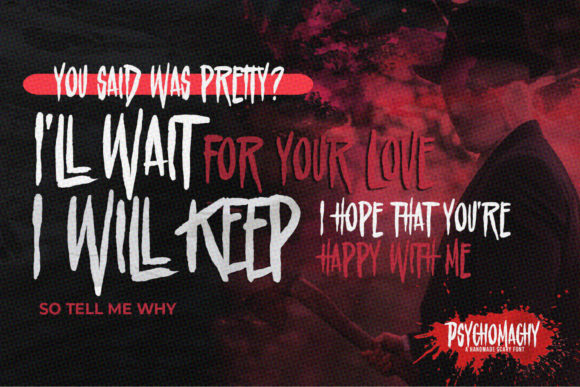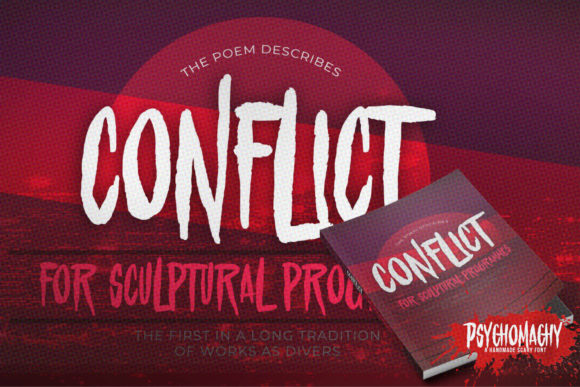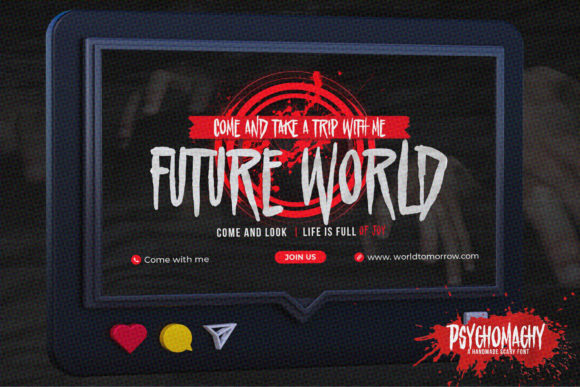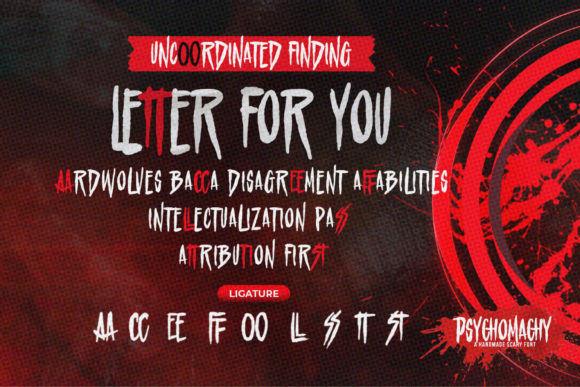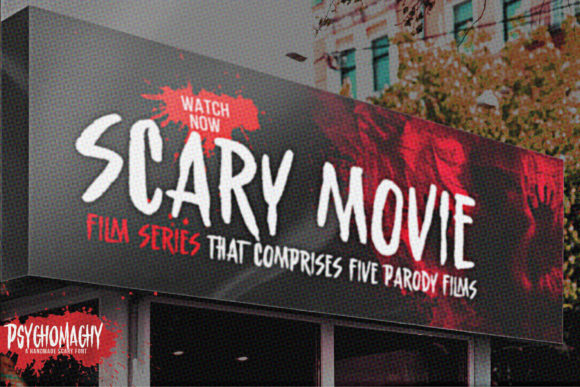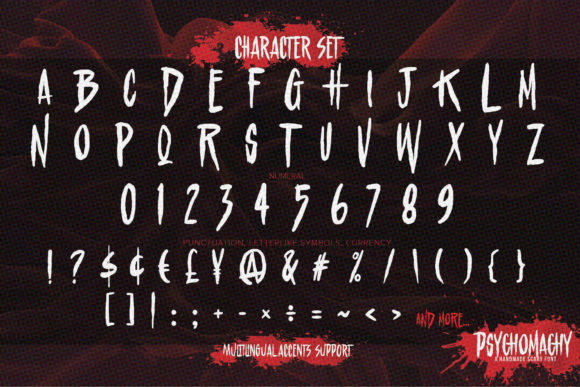
Introduction to Psychomachy Font
Psychomachy is a creepy and dark looking display font.
It is perfectly suitable for any Halloween-related project or crafty idea The only limit is your imagination.
Key Features of Psychomachy Font